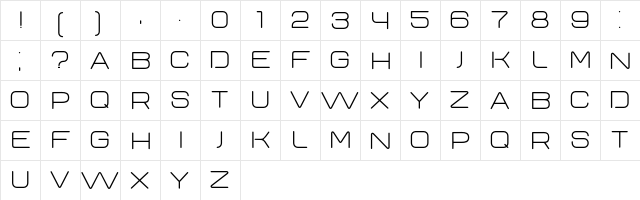
Yeysk Regular
Design Context for Yeysk Typeface
Yeysk offers clean, dependable letterforms without strong stylistic allegiance, making it a practical choice for designers who need flexibility.